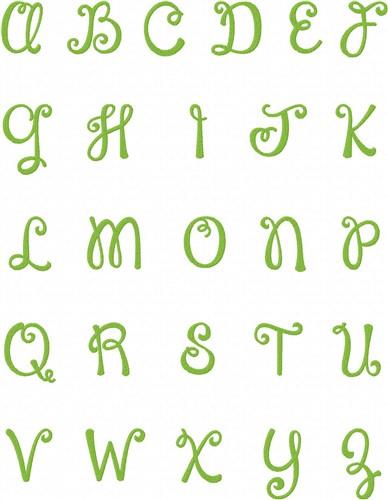
Unicorn Creatives is happy to present Happy Day machine embroidery font which has Playful script machine embroidery font in light green, perfect for adding a cheerful touch to casual designs on items like tote bags. Available in PES, DST & 9 other formats. included. If you would like to view more embroidery fonts and alphabets please search our embroidery fonts page.